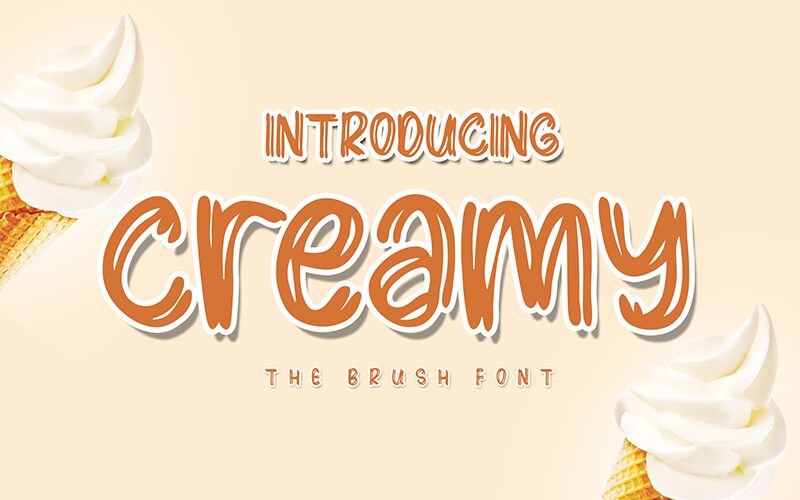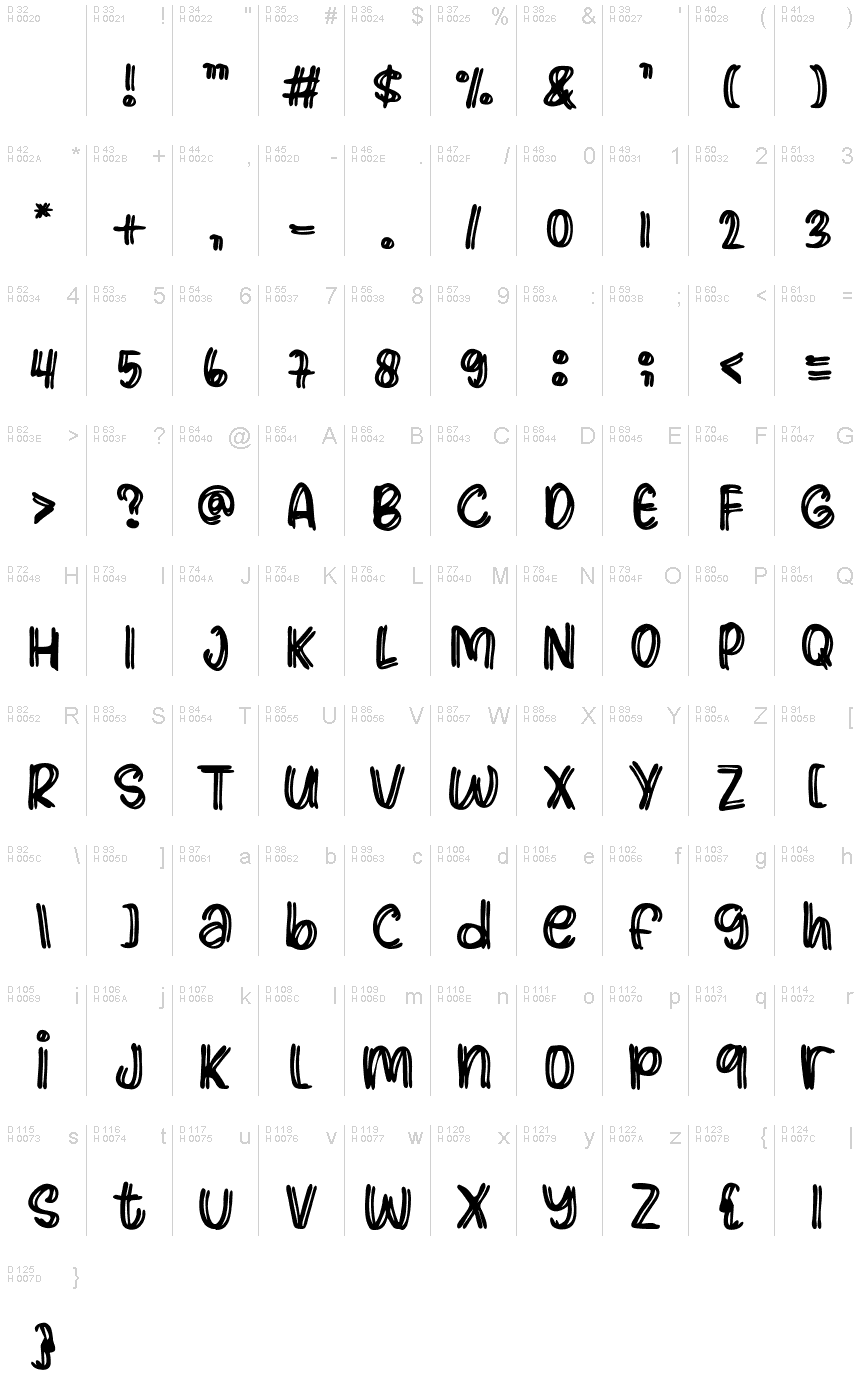
Creamy
Creamy is a captivating brush font designed by Share Font. Its semi-bold weight and hand-drawn style make it perfect for creating eye-catching designs with a touch of whimsy. This versatile typeface is ideal for a range of projects including branding, packaging, social media graphics, and more. Whether you're looking to add personality to your website or create unique product labels, Creamy's playful strokes and organic feel are sure to impress. Make your designs stand out with the delightful charm of Creamy font!